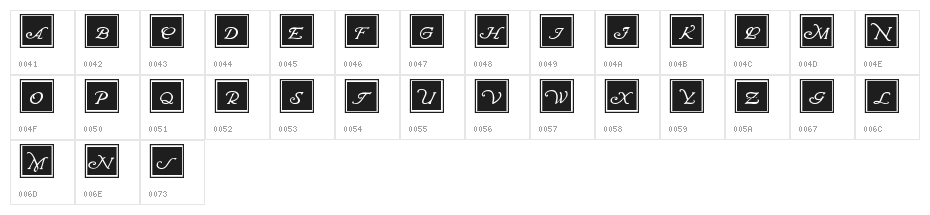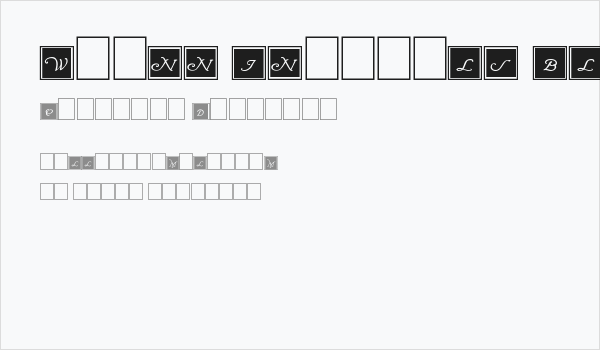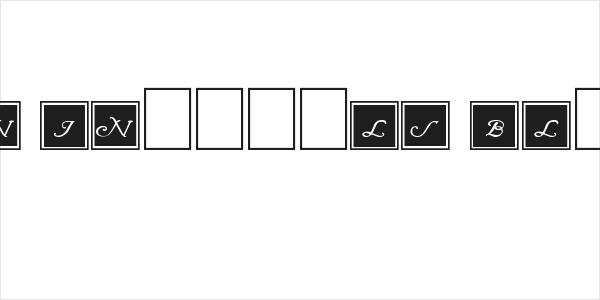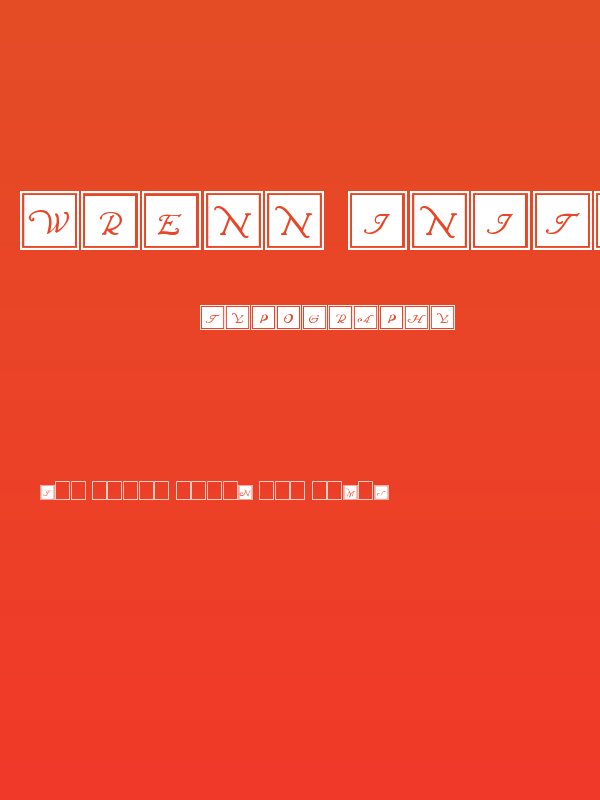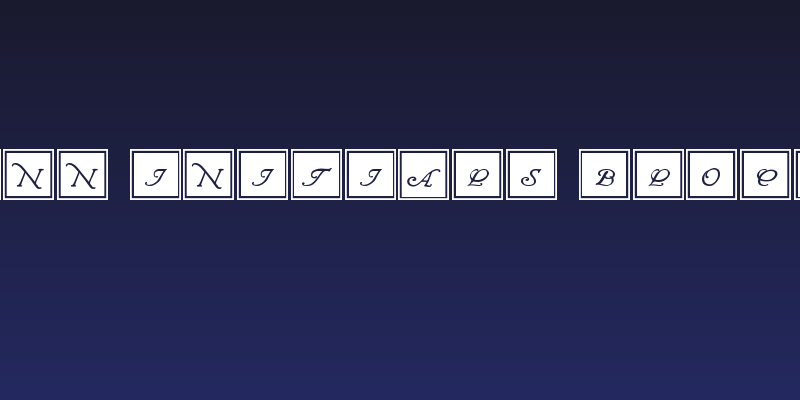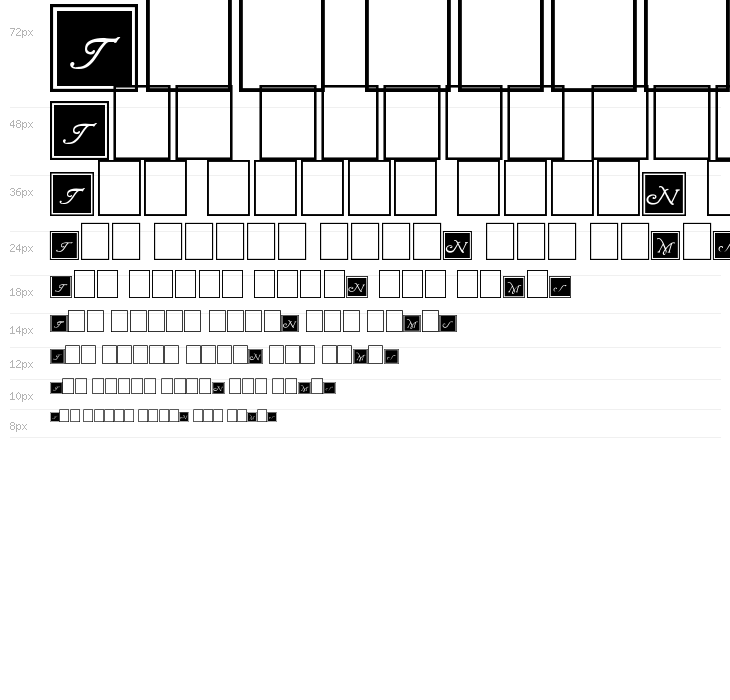
Wrenn Initials Blocked Font
Wrenn Initials Blocked Description
This font features a decorative style with each letter enclosed in a square block, giving it a bold and prominent appearance. The uppercase letters are elegantly designed with a classic script style, characterized by flowing curves and intricate details. The font's design is reminiscent of traditional calligraphy, making it suitable for formal and elegant applications. The letters are well-spaced, ensuring readability while maintaining a sophisticated look. The overall style is both timeless and versatile, making it ideal for projects that require a touch of class and refinement.
| Use Case | Logos, Invitations, Decorative Monograms |
| Proposed Projects | Ideal for wedding invitations, luxury branding, formal event programs, and decorative monograms. |